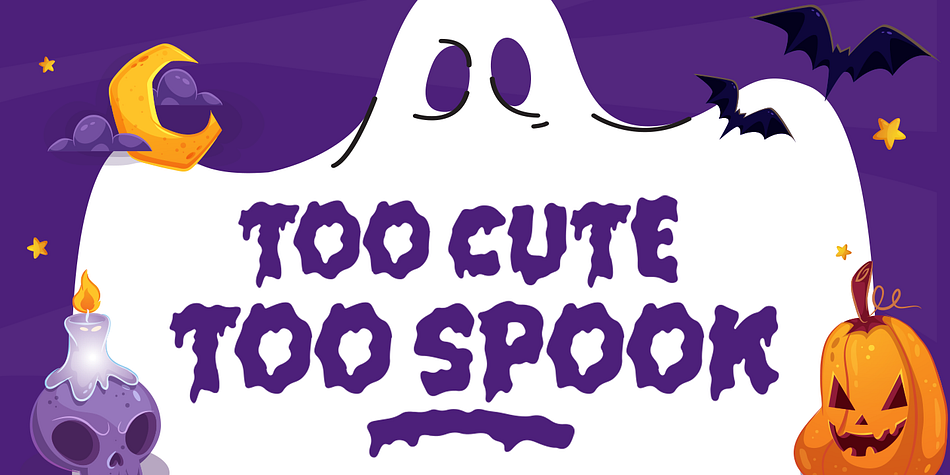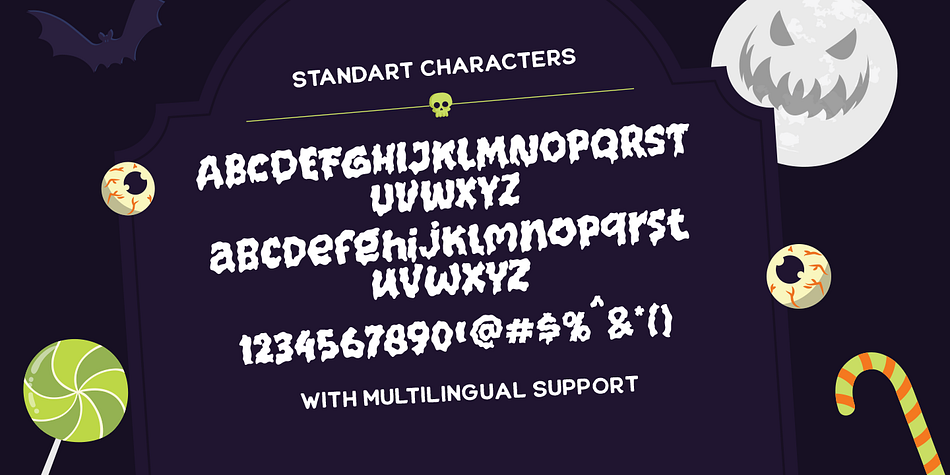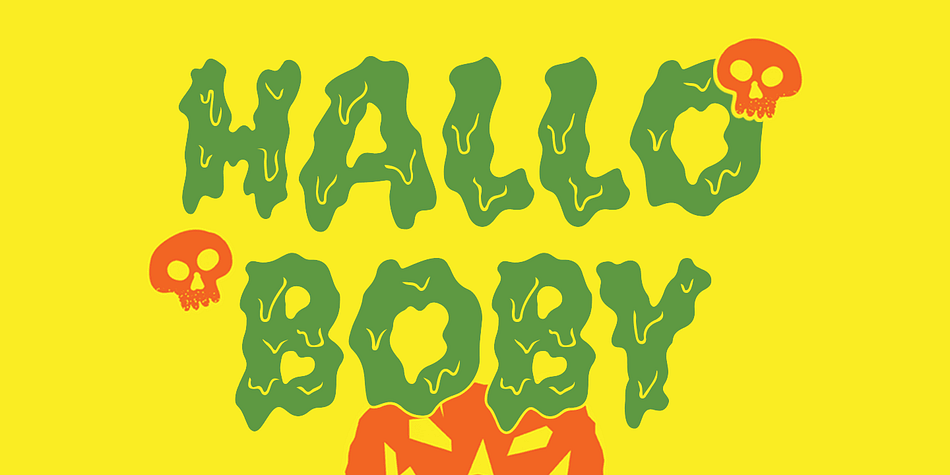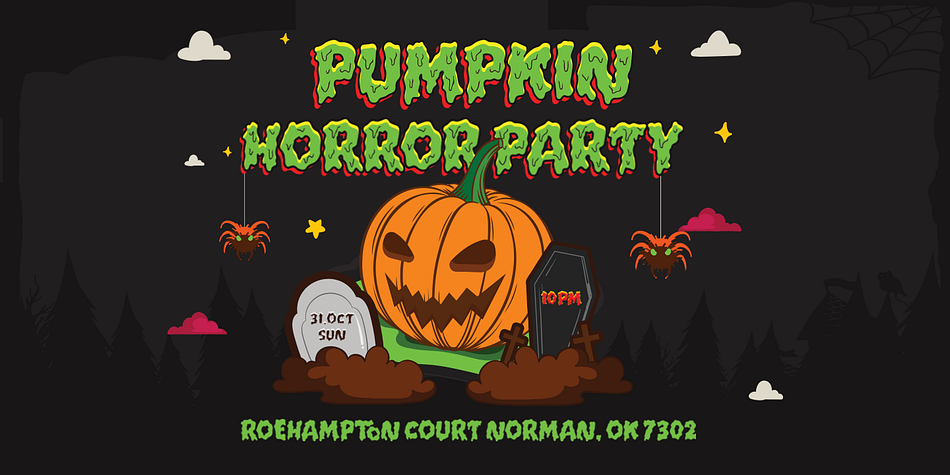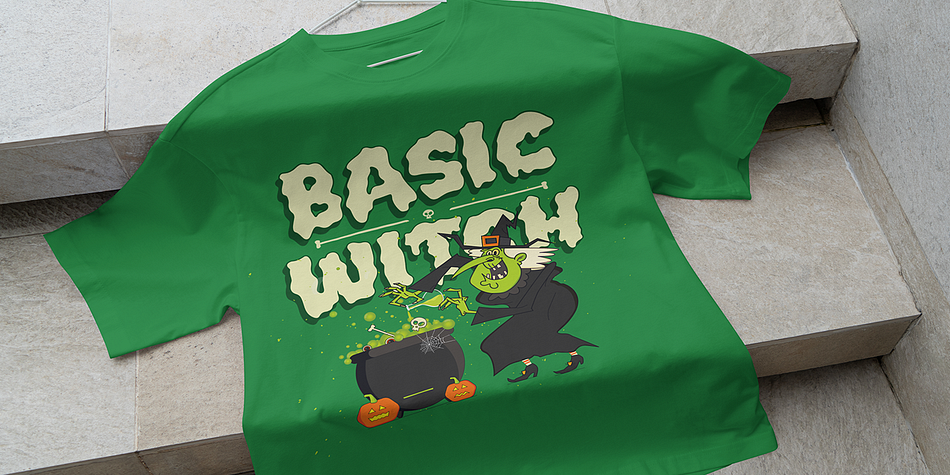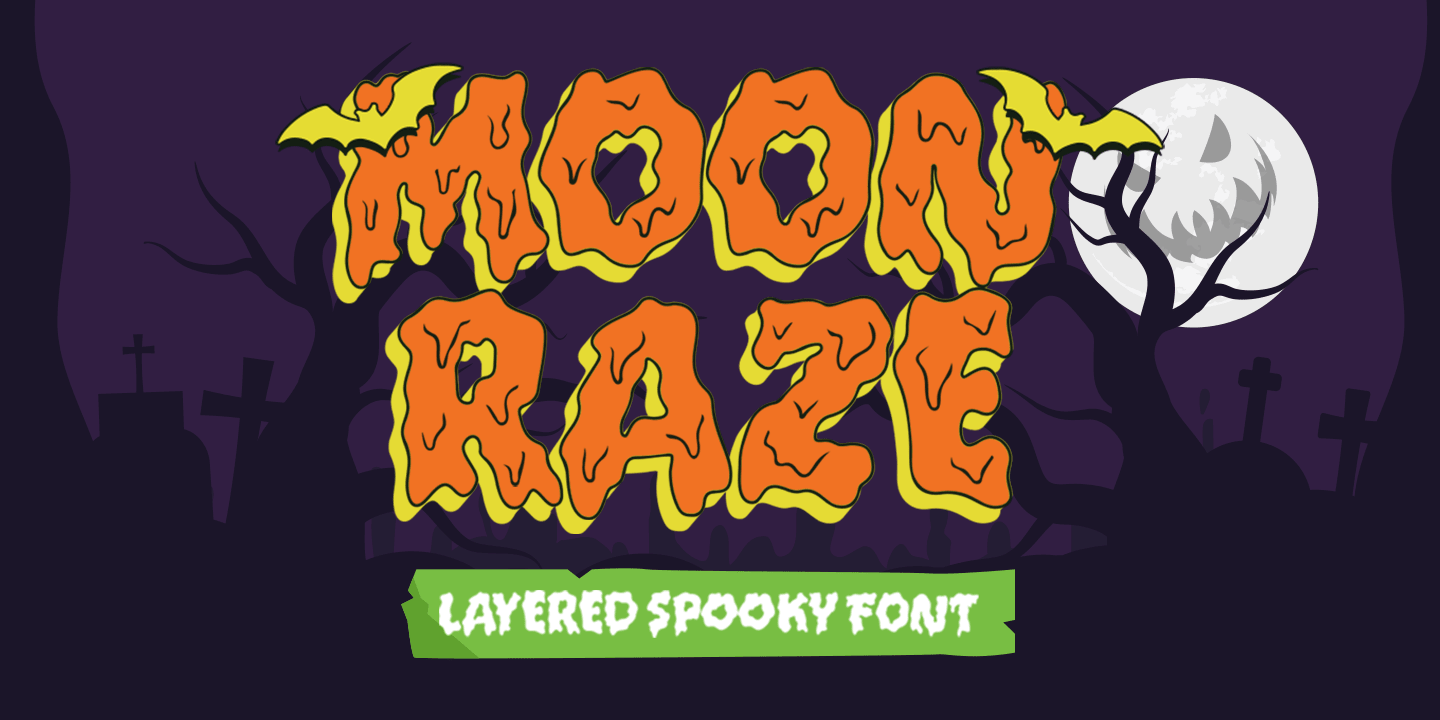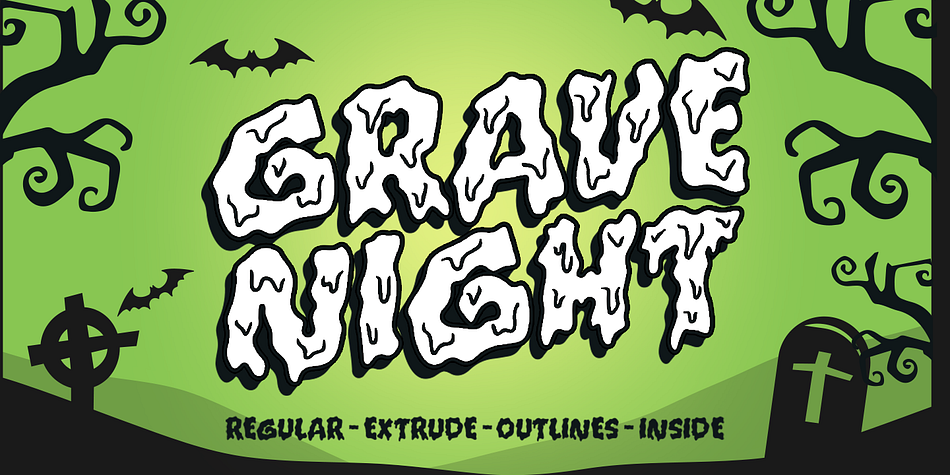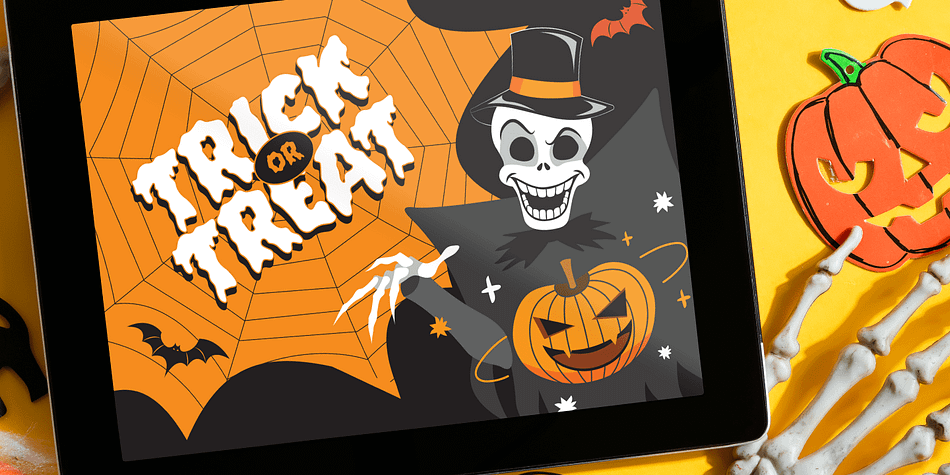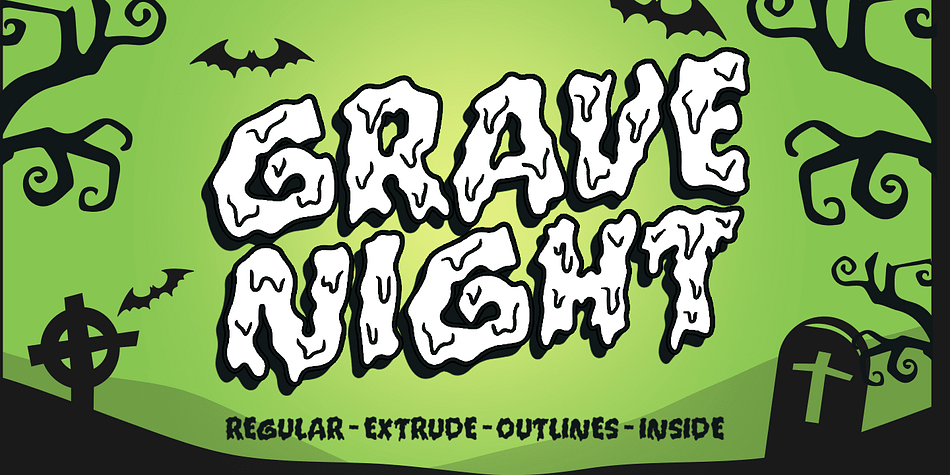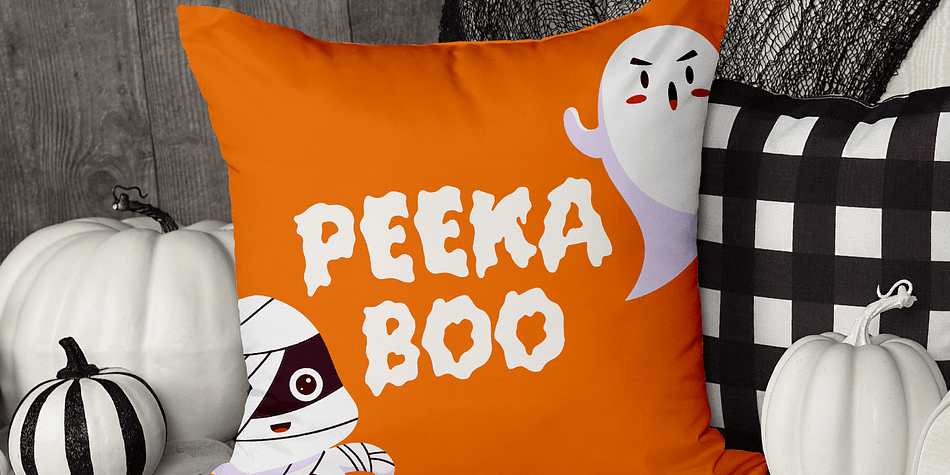
Moon Raze
Designed by Hendry Juanda, Moon Raze is a novelty font family. This typeface has four styles and was published by Letterhend Studio.
Moon Raze - A display typeface font with bold and unusual form. This font has unique shape, very suitable for horror, thriller and spooky theme design yet still fun and playful. This font also perfectly made to be applied especially in logo, and the other various formal forms such as invitations, labels, logos, magazines, books, novels, labels or any type of advertising purpose.